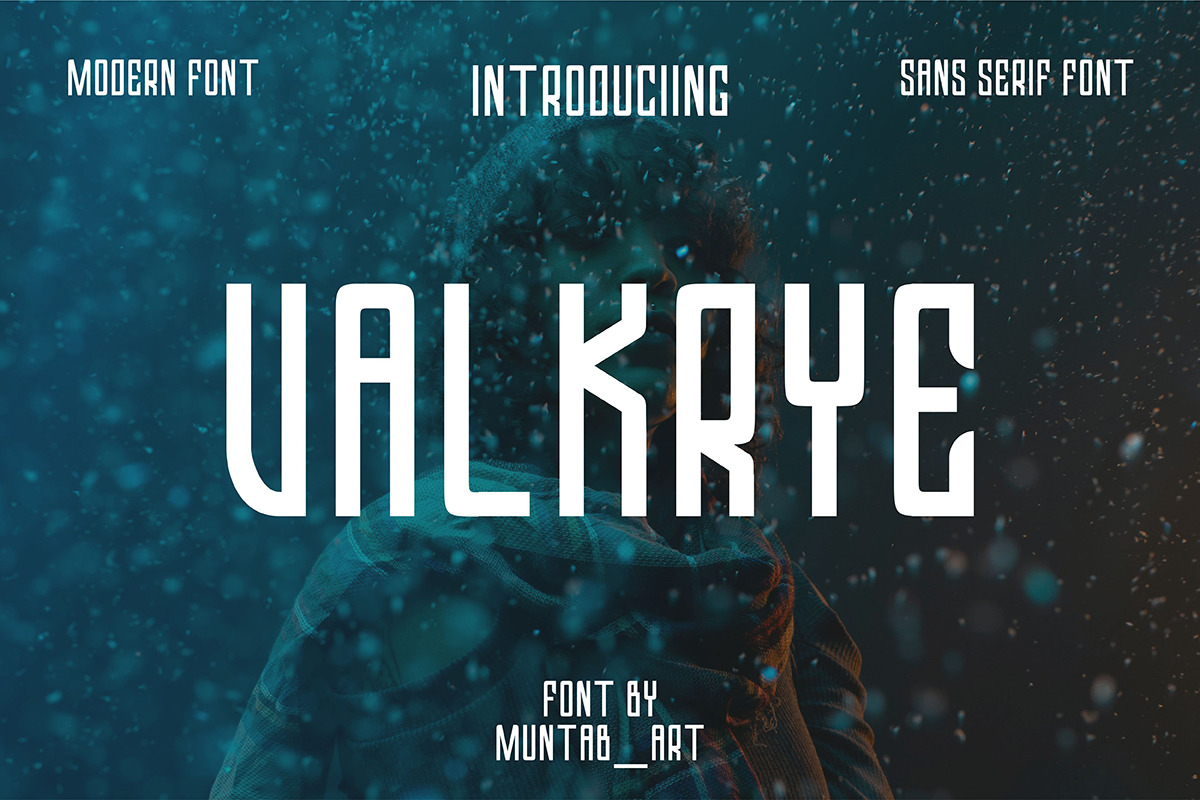
Valkrye | Modern Font
Valkrye fonts includes uppercase letters, numerals, a large range of punctuation. sans serif font with modern style. Created for poster, web design, branding, illustrations, badges and some other works.